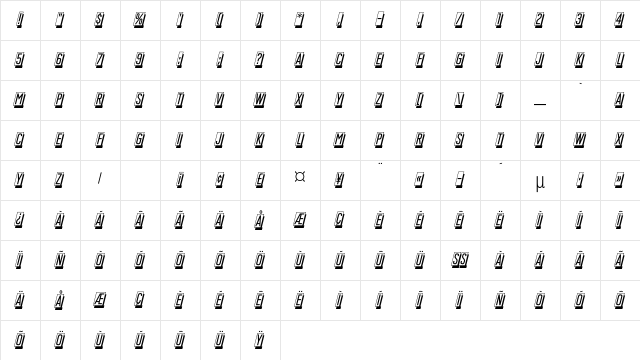
Mastercard Std Regular
| Designer | John Hamon |
Design Context for Mastercard Std Typeface
Mastercard Std is a composed and adaptable typeface that performs quietly and consistently across a wide range of design contexts.